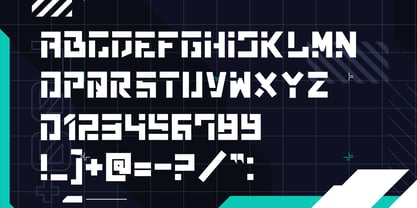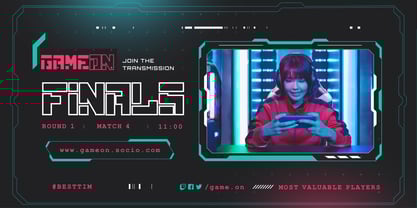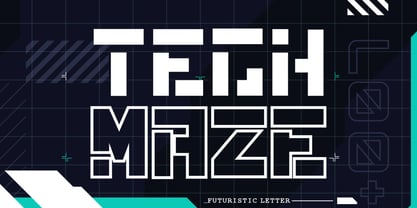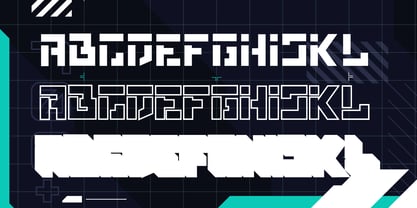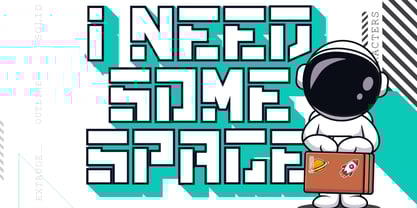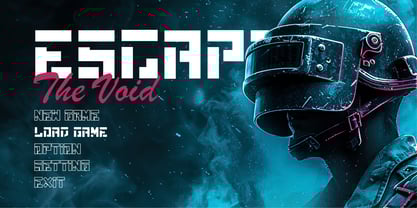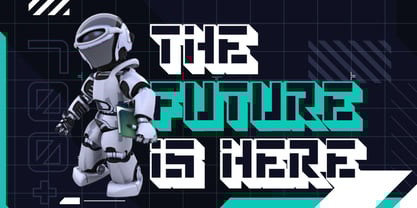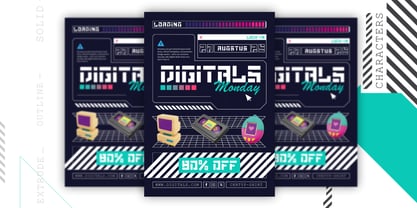
Techmaze
by Sipanji21
The Techmaze Font Family was designed by Sipanji and published by Sipanji21. Techmaze contains 3 styles and family package options. More about this family
Techmaze is a modular futuristic font inspired by sci-fi aesthetics, pixel art, and digital grids. Designed with sharp corners and blocky forms, this techno-style typeface is perfect for digital projects, modern branding, UI interfaces, esports logos, game titles, and tech event posters. It comes with 3 styles: Solid, Outline, and Extrude — giving you flexible layering options for a high-tech 3D appearance. Whether you're crafting a sci-fi interface, a crypto-themed design, or a virtual reality concept, Techmaze delivers bold and mechanical energy to every character.